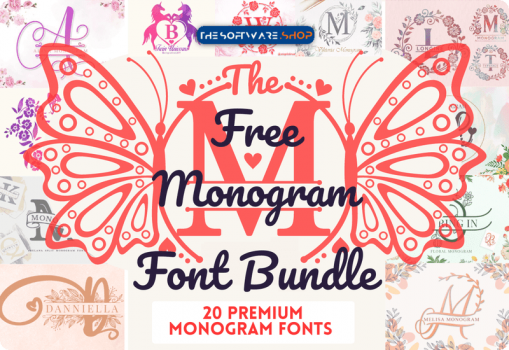
Monograms are created when one, two, or more letters are combined to form one symbol or image. In this case, they’re often used as personal signatures for people’s names, but they can also be used in other ways like adding initials on clothing.
There’s no limit to what style and design you want your lettering to be; it all depends on what fits with your project and personality. One of the most common types of monograms is the family crest which usually includes more than just initials such as symbols and animals – whatever works for your family!